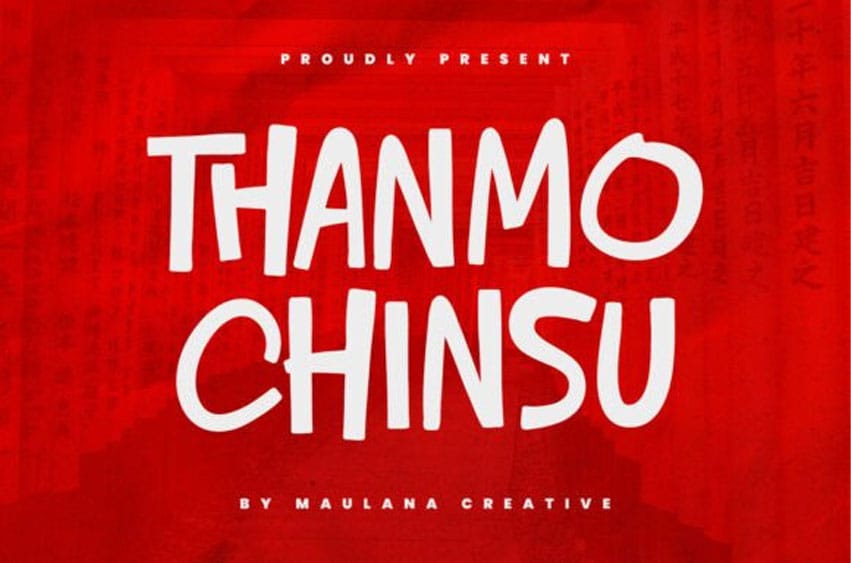
Thanmo Chinsu Font is a dynamic brush-style display font with a quirky, hand-drawn character.
Its slightly irregular strokes give it a casual yet energetic vibe—ideal for posters, food packaging, creative branding, and fun social media content that needs personality and flair.